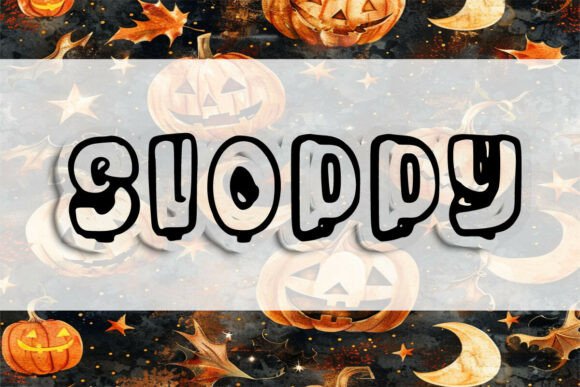
Introduction to Sloppy Font
Immerse yourself in the unique personality of the Sloppy font, perfect for injecting character into a wide array of creative ventures.
From vibrant t-shirts and attention-grabbing stickers, to striking magazine layout designs, the Slabby font is exceptionally versatile It’s a top choice for crafting vibrant SVG files and heartfelt greeting cards, and proves its prowess for all your Cricut project needs.
Key Features of Sloppy Font
Why Choose Sloppy Font?
Sloppy Font offers exceptional quality and versatility, making it a valuable addition to your design toolkit. Whether you’re creating for personal projects or commercial use, Sloppy Font delivers professional results.